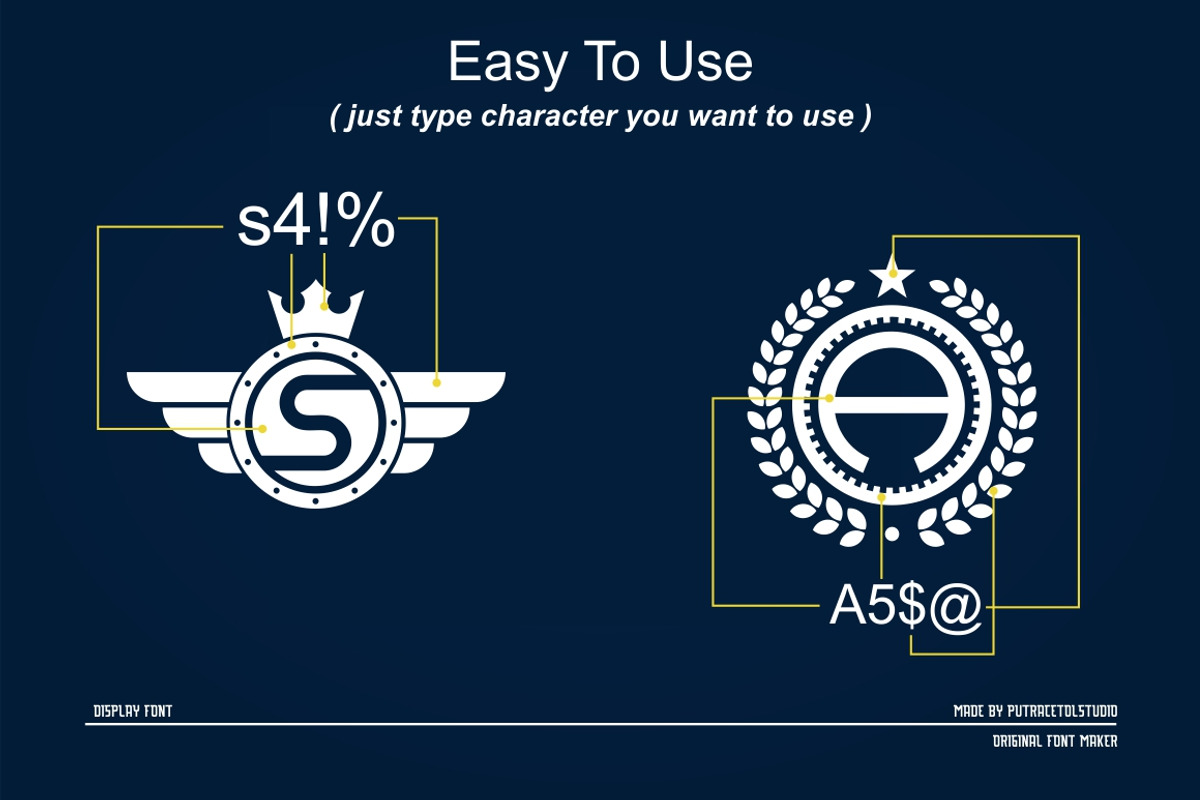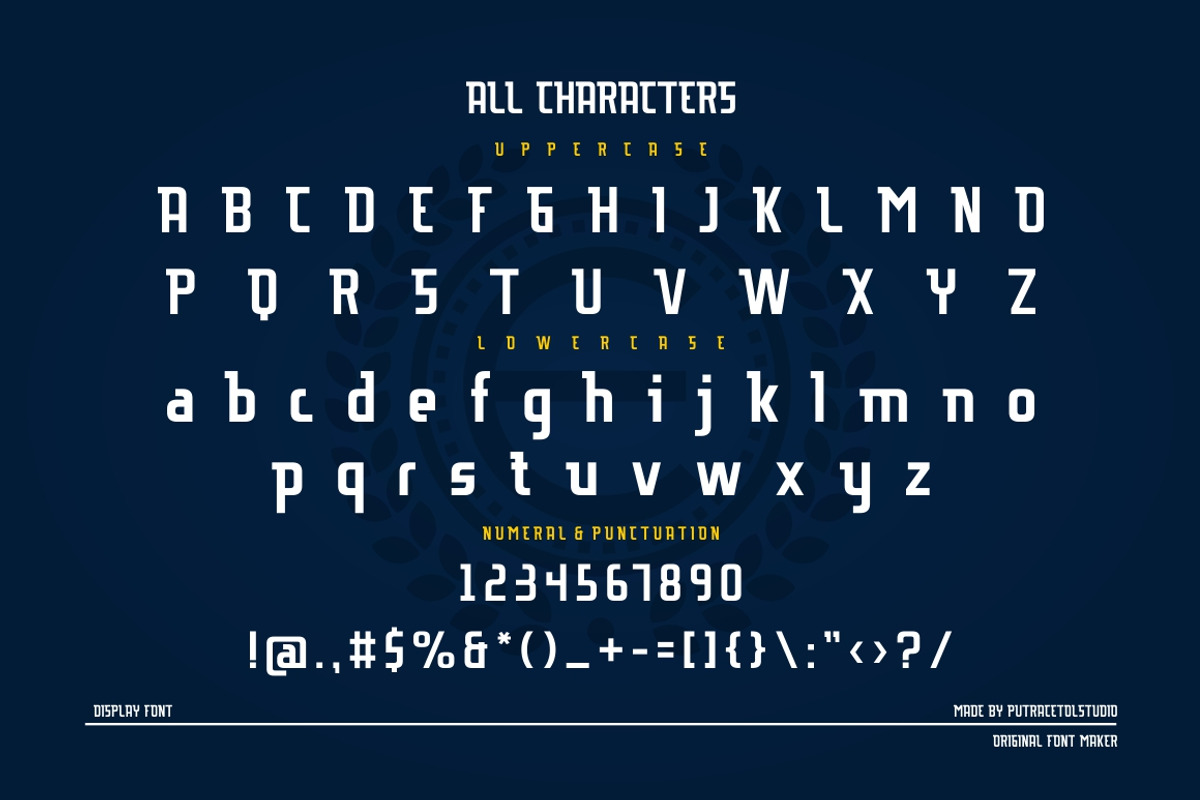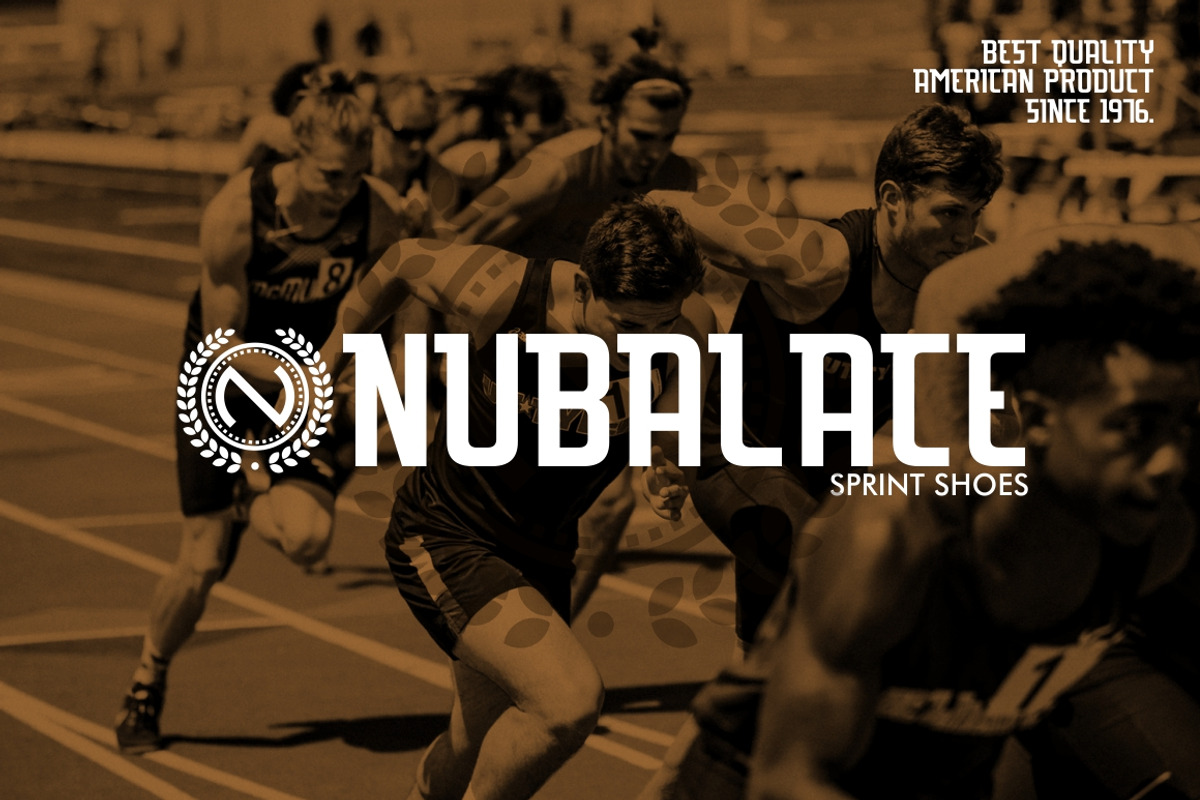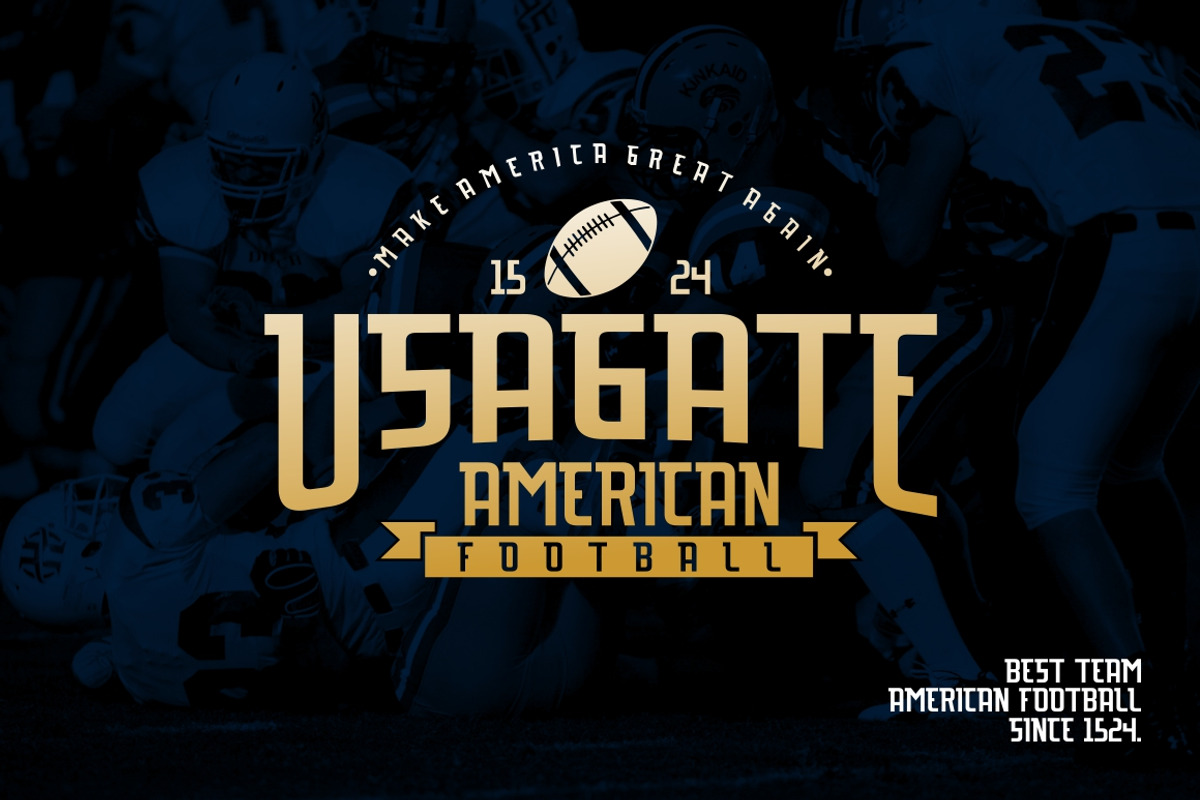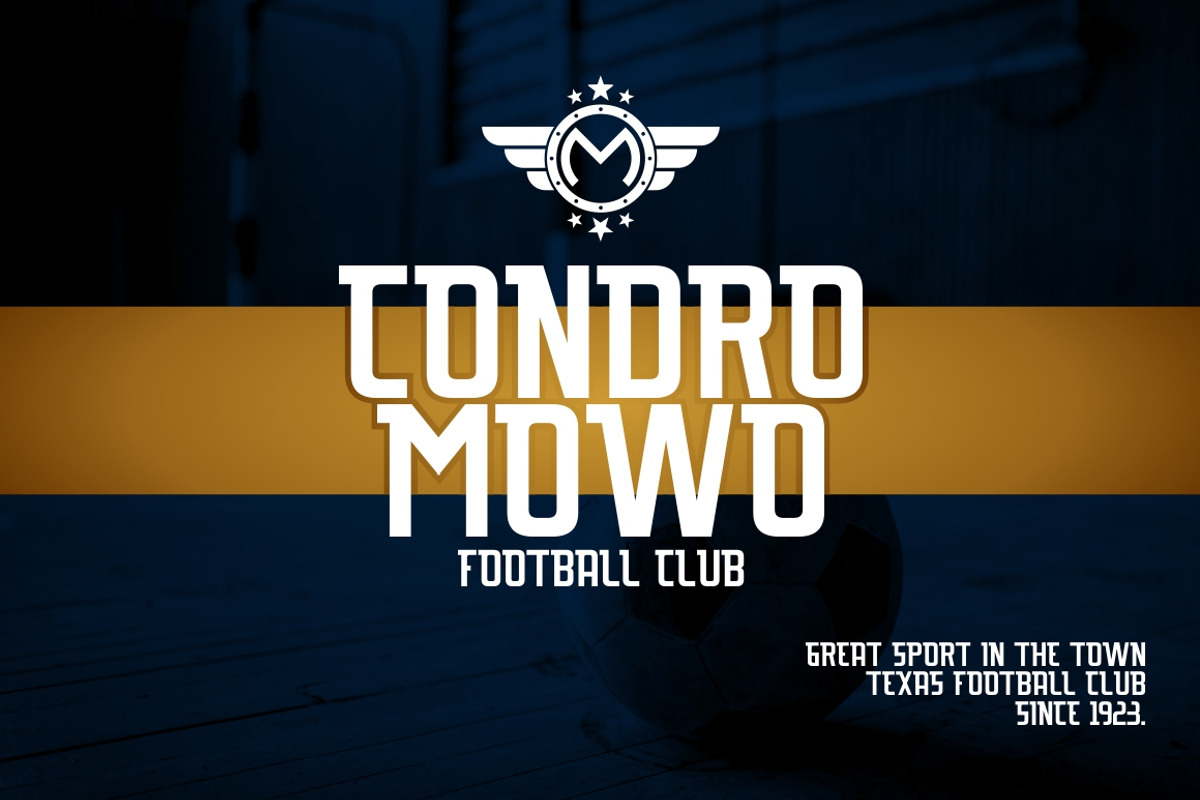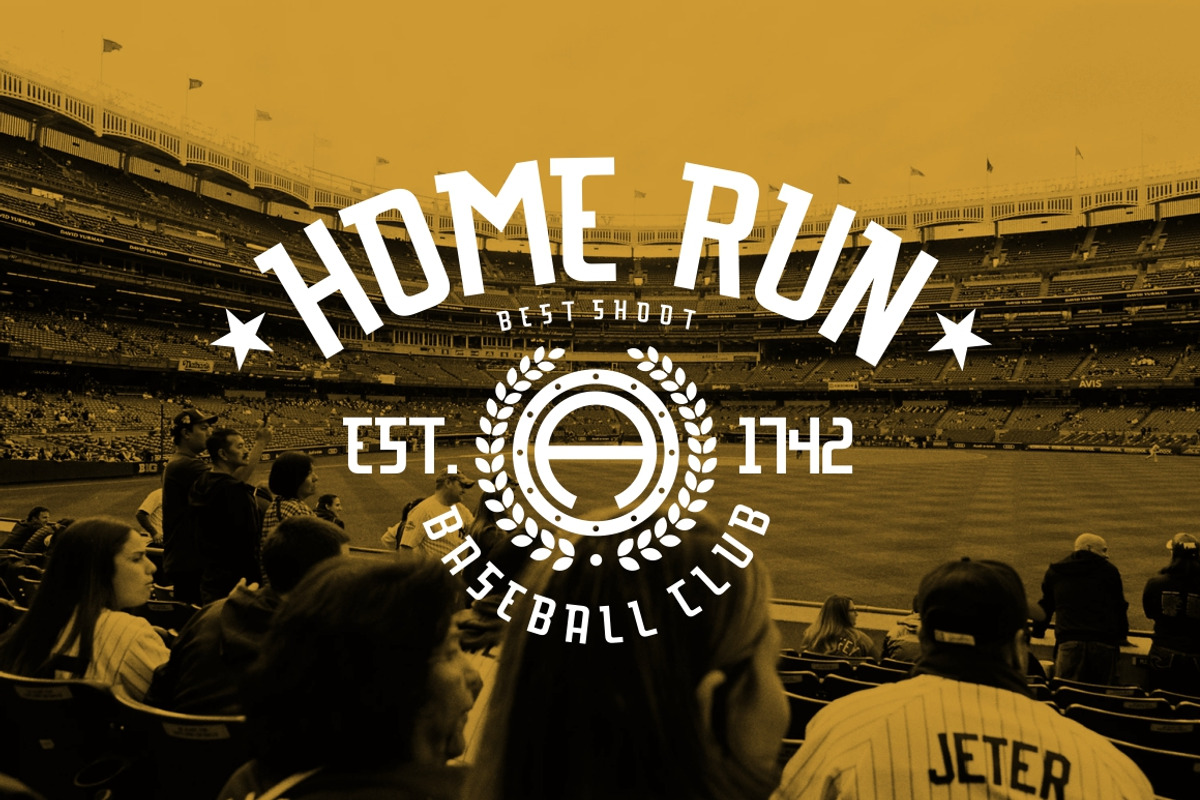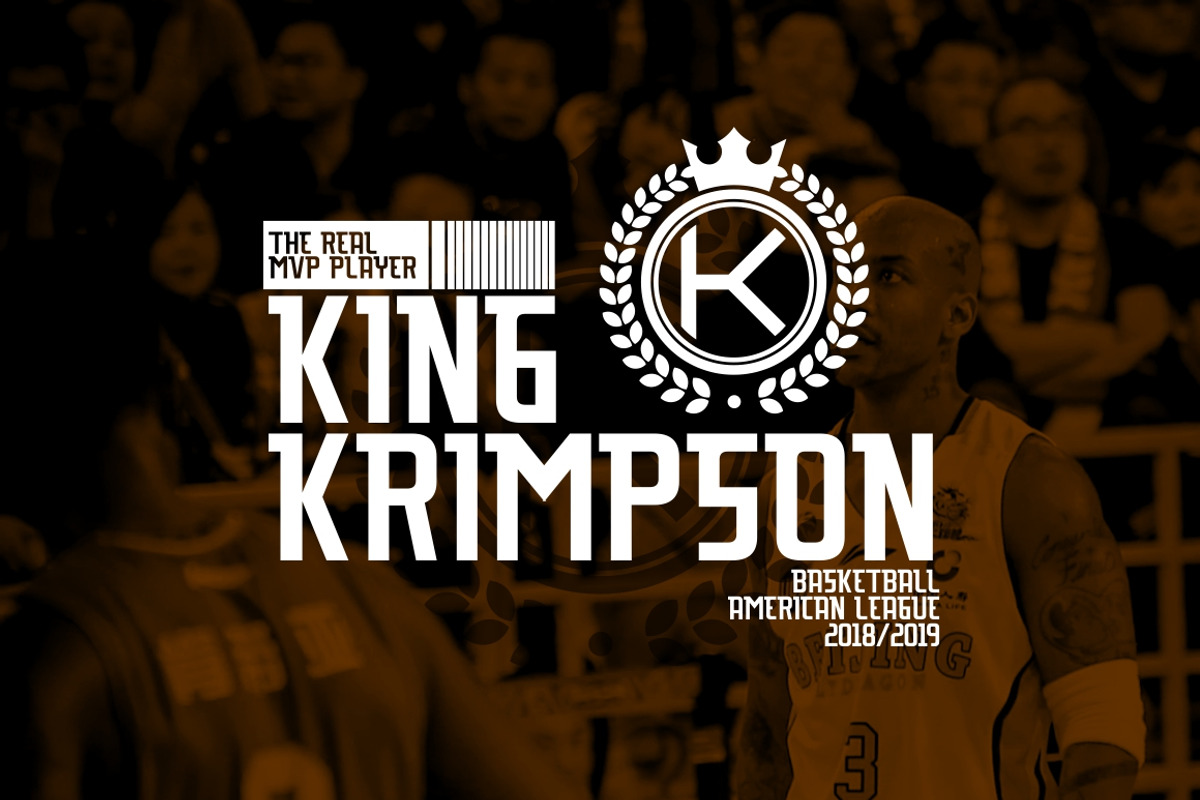
EUROLITE Sport Font + BONUS
EUROLITE - Display Typeface
EUROLITE is a display sport typeface. Sporty and solid character. EUROLITE is perfectly suited to logo, sport, brand, jersey, poster, clothing and much more!.
BONUS - EUROLITE CIRCLE LOGO CREATOR
EUROLITE CIRCLE LOGO CREATOR is creator logo typeface, very easy to use. You just type the logo that you want to make, you can also see the character map to make it easier.
This font is also support multi language.
Multilanguage Support.